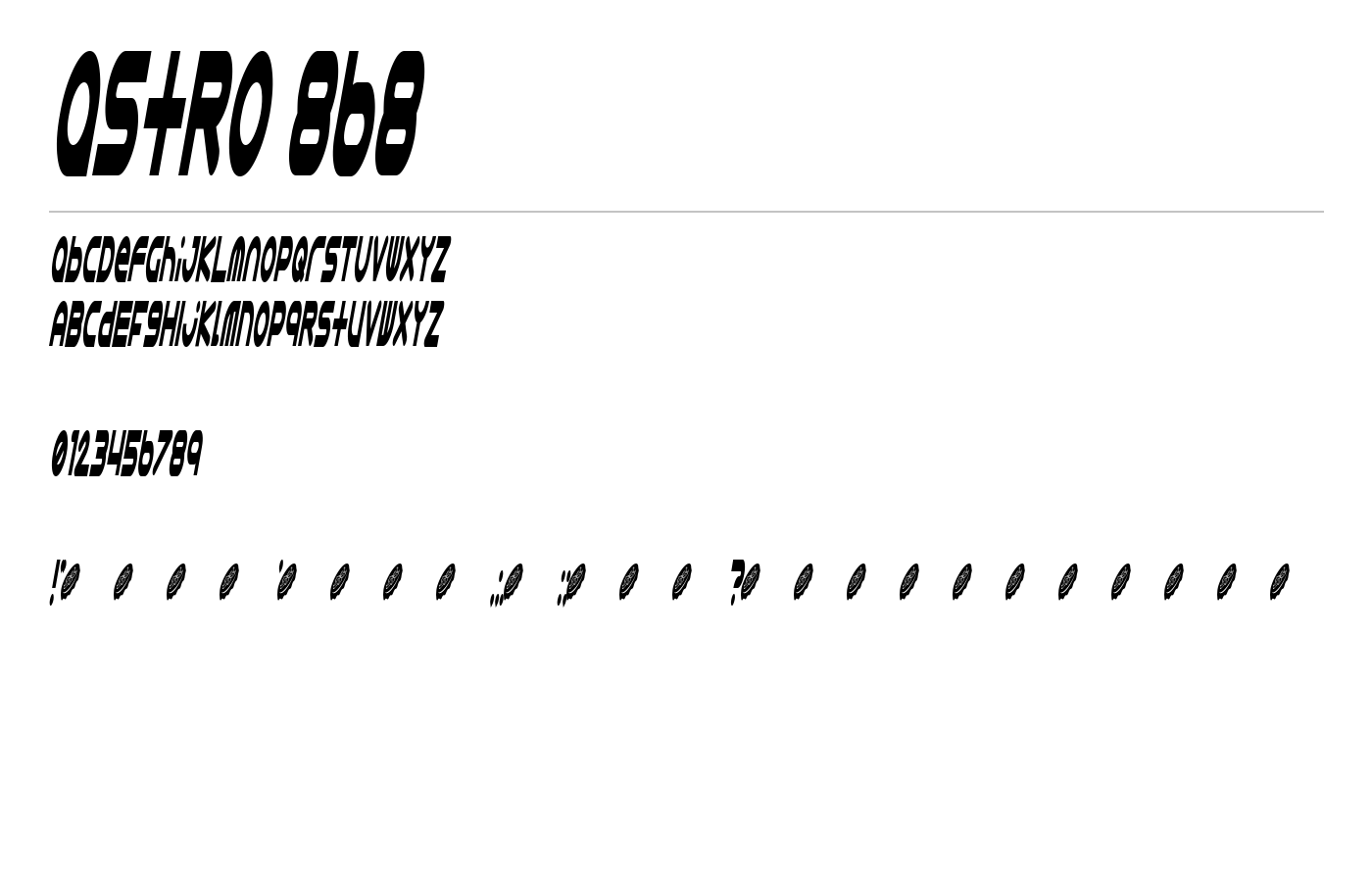
Astro 868 is a bold, condensed sans serif font with a futuristic and sporty vibe. Its high contrast strokes and tight spacing, combined with unique geometric shapes and italicized angle, make it perfect for dynamic headlines and branding projects that want to convey speed, innovation, and modern energy. This font works especially well in advertising, logos, and packaging for tech, sports, and entertainment industries.
Astro 868 Font